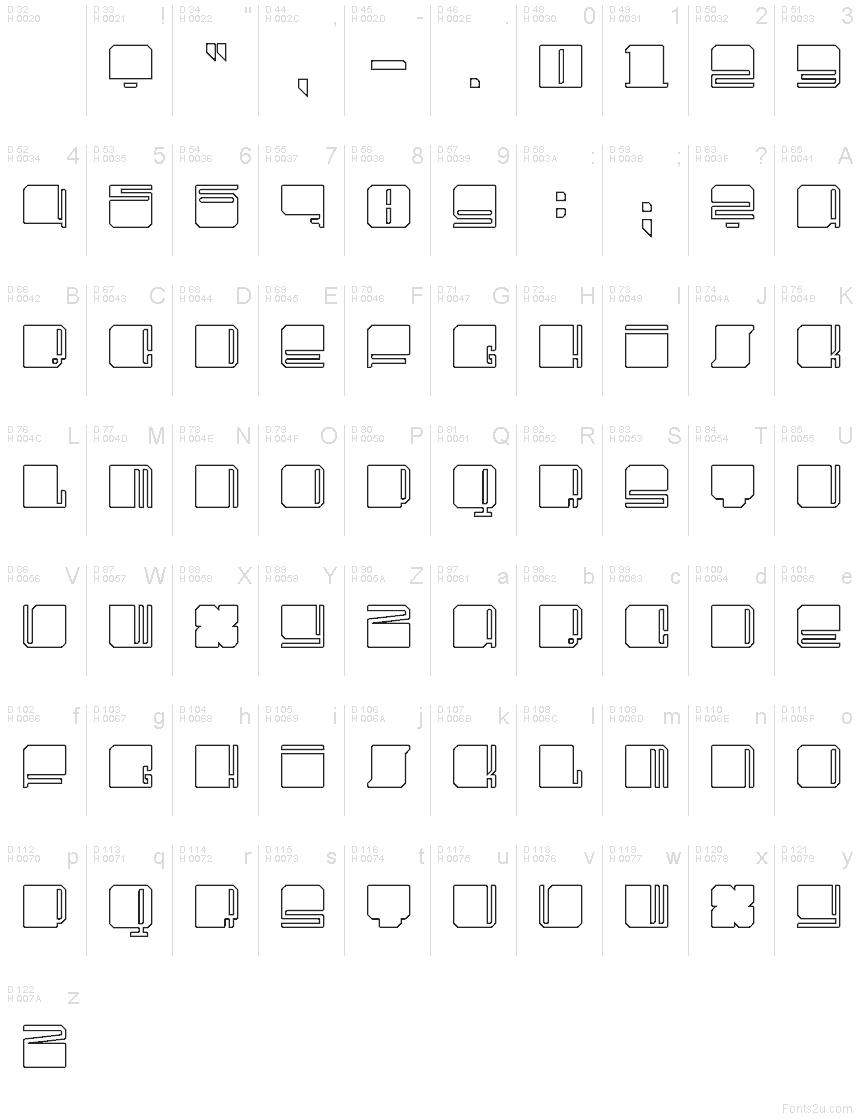
UltraSquared Outlines
UltraSquared Outlines font by Ultrabold Kommunikationsdesign is a free display typeface with an expanded format and outlined letters. The groovy style features bold geometric and modular letters for stylized headlines and loud titles. Inspired by retro aesthetics, this expanded modern outline typeface can be used to create futuristic designs with high-tech feels.
UltraSquared Outlines font is perfect for branding projects, animated movie covers, video games, cartoon posters, graffiti-inspired artwork, album covers, social media blogs posts or announcement images. Use it also in your mobile applications interfaces or websites for a fun energetic feel.